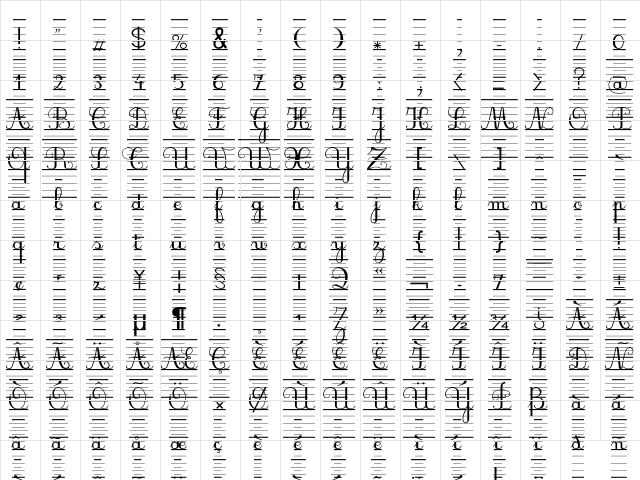
SeyesBDL Regular
Design Context for SeyesBDL Typeface
SeyesBDL takes a measured approach to typography — its balanced proportions and neutral character make it a reliable workhorse for both digital and print work.